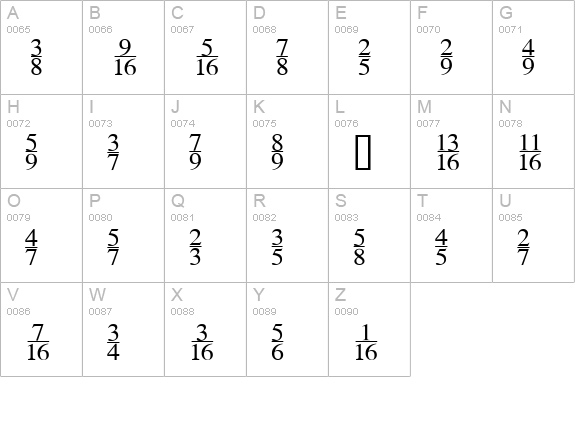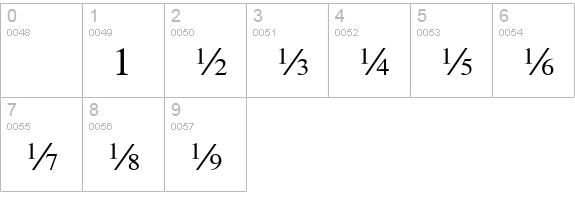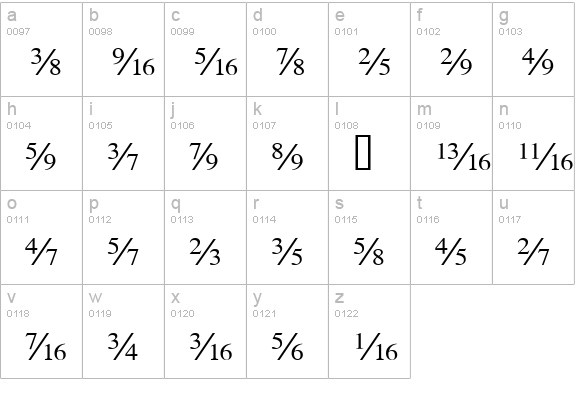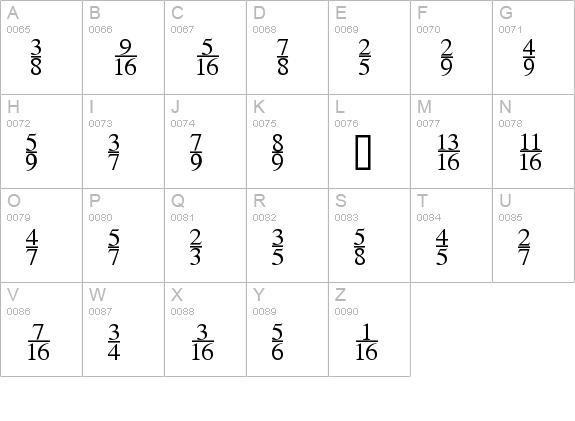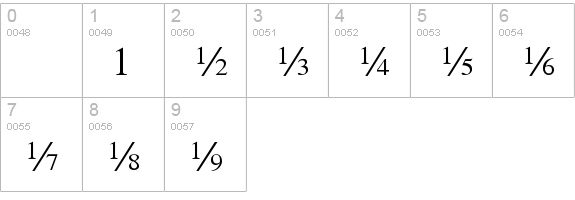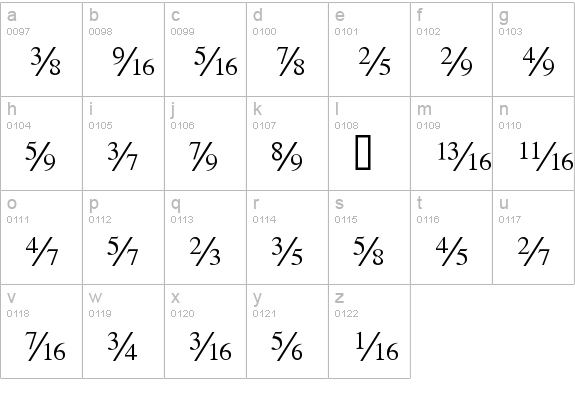
SeriFractions Font Details
SeriFractions, the epitome of elegance and versatility, is a font that will take your typographic creations to new heights. With its clean lines, balanced proportions, and exquisite attention to detail, SeriFractions is the perfect choice for any design project, be it print or digital. What sets SeriFractions apart is its incredible ability to seamlessly blend into any design style while still maintaining its own unique personality. Whether you're designing a logo for a modern tech startup or creating an elegant wedding invitation, SeriFractions effortlessly adapts to your vision, adding a touch of sophistication and refinement to every composition. But that's not all. SeriFractions also comes with a wide range of meticulously crafted fractions, making it an ideal choice for designers who frequently work with numerical data or require precise typographic alignment. Each fraction is flawlessly designed, ensuring that your fractions seamlessly integrate into your layout, enhancing readability and professionalism. And the best part? SeriFractions is available as a free download exclusively at FontsMarket.com. Yes, you read that right - this exceptional font can be yours, free of charge. Simply head over to FontsMarket.com and experience the beauty and versatility of SeriFractions for yourself. Don't miss out on this incredible opportunity to elevate your design projects with a font that effortlessly combines elegance and functionality. Download SeriFractions today and let your creativity soar to new heights.